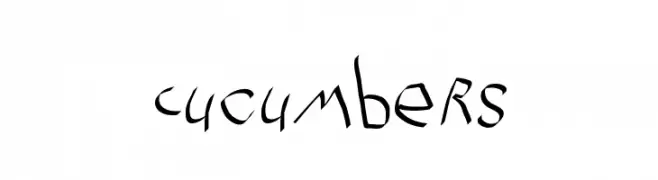
A whimsical, hand-drawn font with irregular, dynamic strokes.
Decorative geometric icon font with abstract faces in bold circles.
Whimsical, eye-themed decorative font with each letter as a distinct illustrated eye.
A sophisticated script font with flowing, ornate cursive letters and elegant swashes.
A high-contrast, elegant font with sharp serifs and dynamic curves.
A collection of vintage American-themed symbols and illustrations.
A bold, shadowed font with a dynamic and modern style.